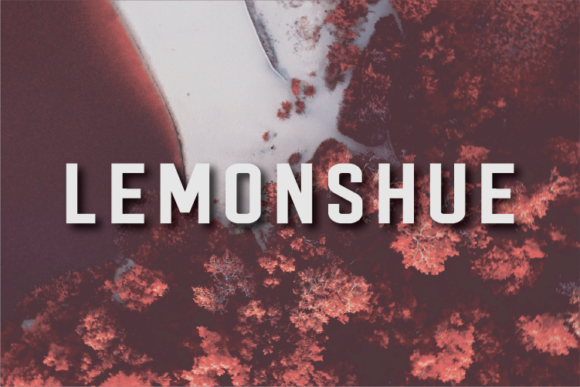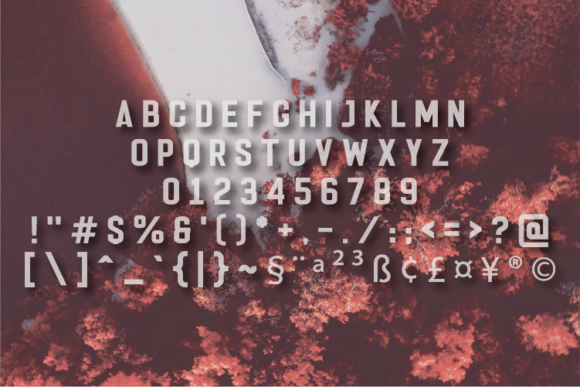
Lemonshue Font: A Bold Sans Serif for Modern Logo Design
About the Lemonshue Font
Discover the charm of Lemonshue Font. This font is a perfect blend of modern aesthetics and classic appeal. Lemonshue is a thick lettered and neat sans serif font. It can easily be matched to an incredibly large set of projects, so add it to your creative ideas and notice how it makes them stand out!
Lemonshue’s bold, yet clean aesthetic makes it ideal for headlines, logos, and short, impactful text on posters or packaging. Its strong character ensures readability even at larger sizes. However, its thickness makes it less suitable for body text or UI elements where legibility over long passages is crucial.
Consider pairing Lemonshue with a delicate serif like Playfair Display for a sophisticated contrast, or a geometric sans-serif such as Montserrat for a modern, balanced feel. A script font like Great Vibes could add a touch of playful elegance, depending on the project’s overall mood.
The font exudes a confident and modern personality, making it a strong choice for brands aiming for a bold, memorable image. Avoid using it in contexts requiring subtlety or a more traditional feel.
Lemonshue Font Usage Examples
Lemonshue Font Example